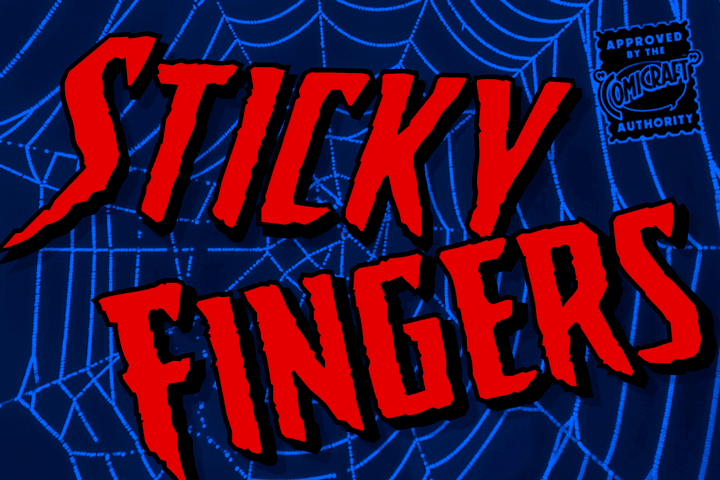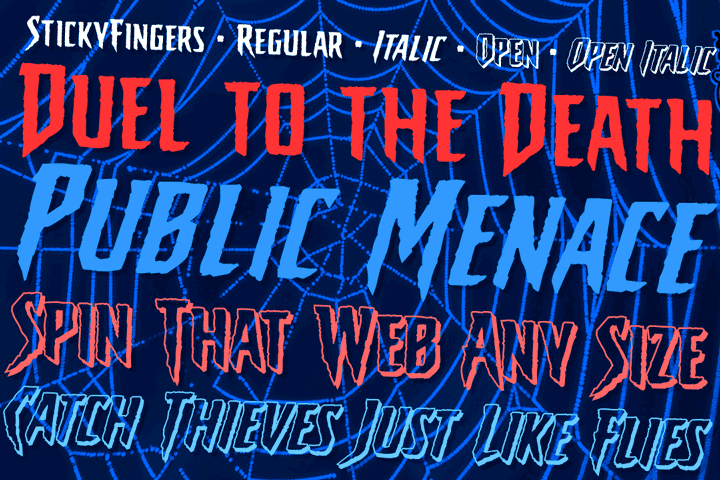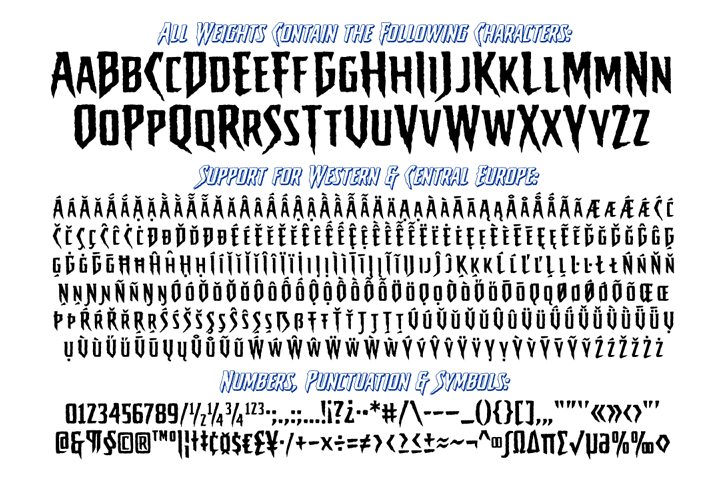
LOOK OUT! It's kinda creepy, we know, but we're convinced that this font does whatever a spider can -- in fact, we believe it can actually spin a web of pretty much any size, and even catch thieves as if they were bugs of some sort -- let's say flies. In fact we'd almost go so far as to say that, in the chill of night (perhaps at the scene of a crime) this font may just arrive like a streak of light in the nick of time.
We're releasing this font now not for wealth or fame, we ignore those things, action is our reward. Here at Comicraft we think of life as a great big bang up, and whenever there's a hang up, you won't find us climbing -- or crawling -- the walls... well, not without STICKY FINGERS anyway!